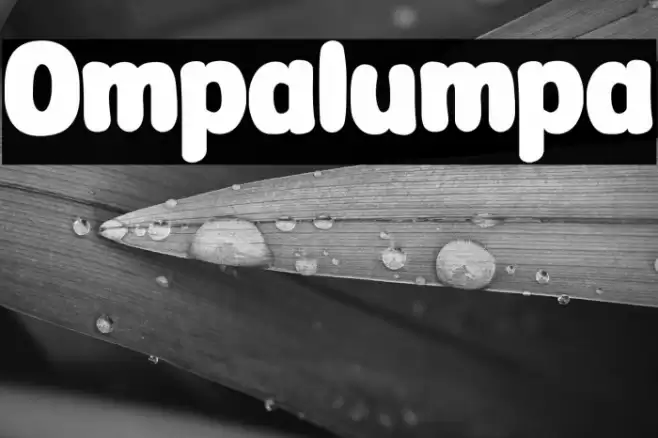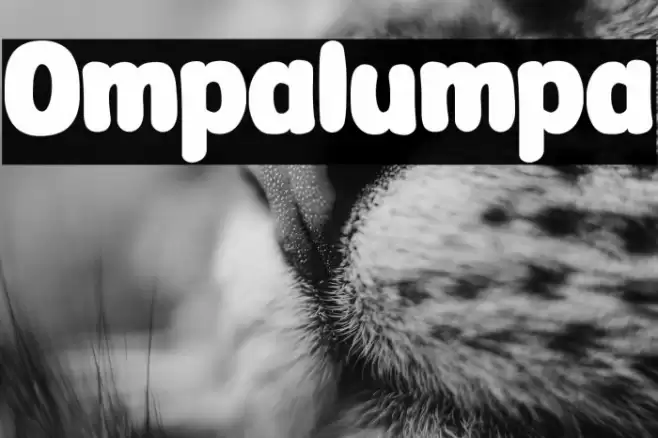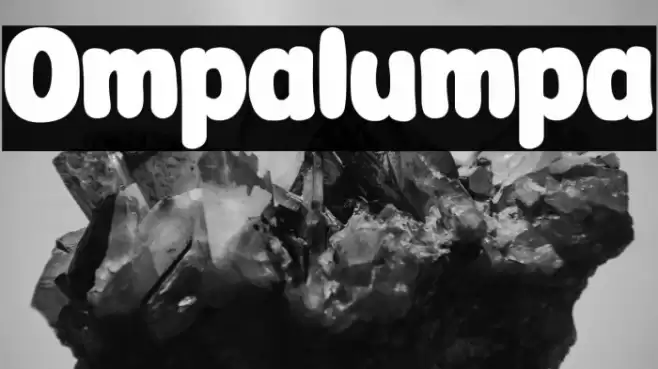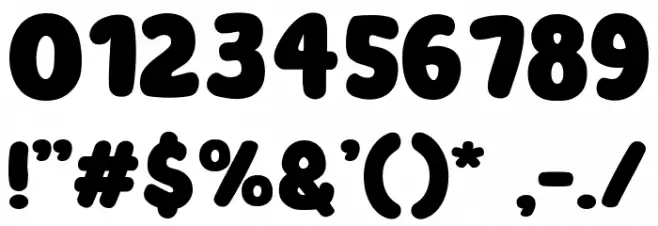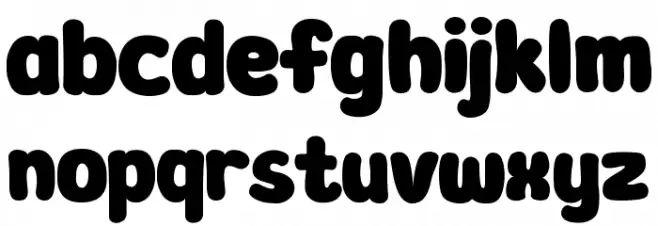
Ompalumpa Font
Ompalumpa Description
This font features a playful and bold design with rounded edges and a bubbly appearance. The characters are thick and have a consistent stroke width, giving them a strong presence on the page. The uppercase and lowercase letters maintain a uniform style, with the lowercase letters slightly smaller but equally bold. Numbers and special characters follow the same design principles, ensuring a cohesive look across all elements. The font's style is reminiscent of retro or vintage designs, making it suitable for projects that require a fun and engaging aesthetic. Its readability is maintained despite the boldness, making it versatile for various uses.
A playful, bold font with rounded edges and a bubbly appearance from Uncategorized fonts.
- Proposed Projects: Ideal for children's books, playful branding, posters, and retro-themed designs.
- Overall Style: Playful, Retro